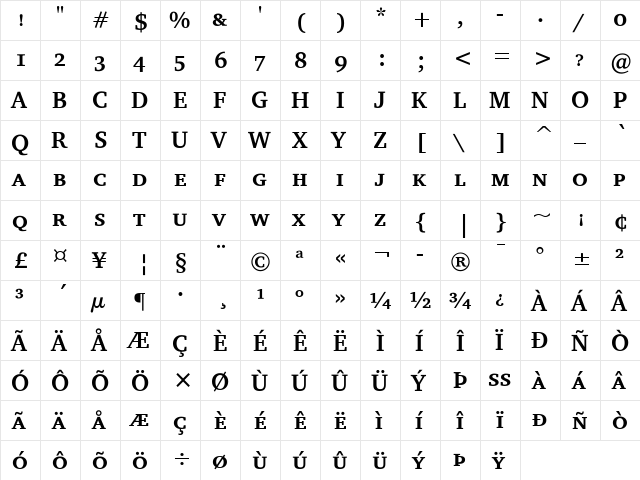
Charter ITC Bold
Design Context for Charter ITC Typeface
Charter ITC takes a measured approach to typography — its balanced proportions and neutral character make it a reliable workhorse for both digital and print work. The heavy weight commands attention and anchors typographic hierarchies.